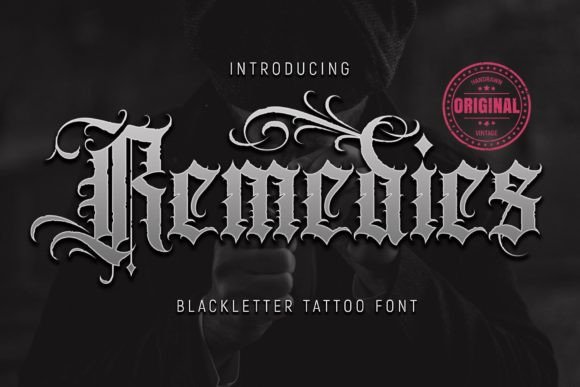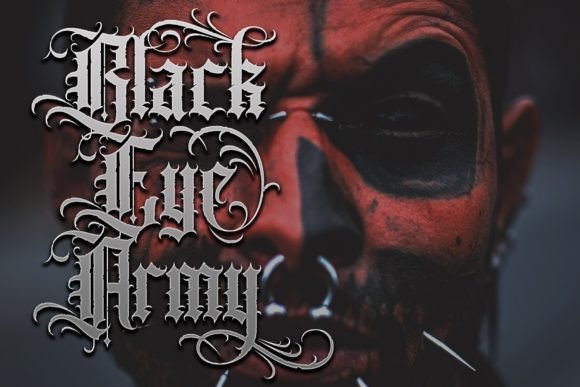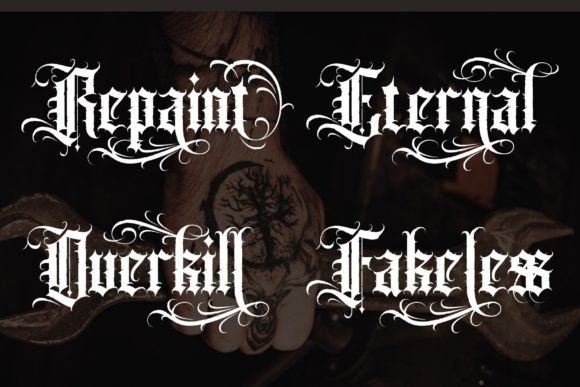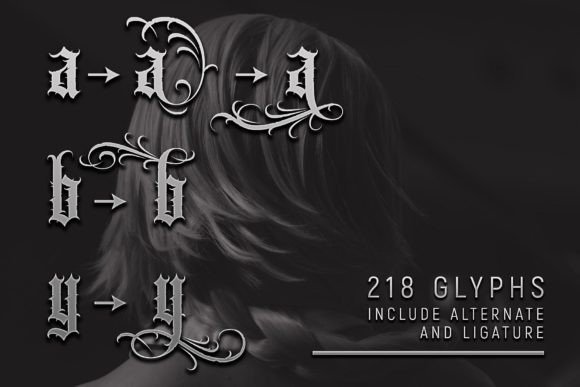
Remedies Font: Bold Blackletter for Tattoo Designs & Grunge Typography
About the Remedies Font
Get ready to be inspired by Remedies Font, a fresh and dynamic typeface for modern creators. Remedies is a contemporary blackletter tattoo font that feels right at home on logos, t-shirt designs, posters, flyers, and other brand identity items. Add it confidently to your projects, and you will love the results.
Remedies excels in headline treatments, short impactful phrases, and logo design where its bold, slightly rebellious character makes a statement. It’s ideal for brands projecting a modern, edgy aesthetic—think streetwear, tattoo parlors, or music-related projects. Avoid using Remedies for large blocks of body text or user interfaces; its intricate details become less legible at smaller sizes.
Pairing Remedies effectively requires considering its strong personality. A clean sans-serif like Futura or a geometric sans-serif like Gotham would create a striking contrast, balancing its ornate forms with a sense of modern order. Alternatively, a classic serif like Garamond or a more contemporary serif like Playfair Display could add a touch of sophistication, tempering its raw energy.
For a softer approach, consider pairing Remedies with a delicate script font for secondary text elements. However, ensure the script style remains relatively simple to avoid visual clutter. The key is to select a contrasting font that allows Remedies to maintain its visual dominance while adding a layer of visual interest and readability.
Remedies Font Usage Examples
Remedies Font Example